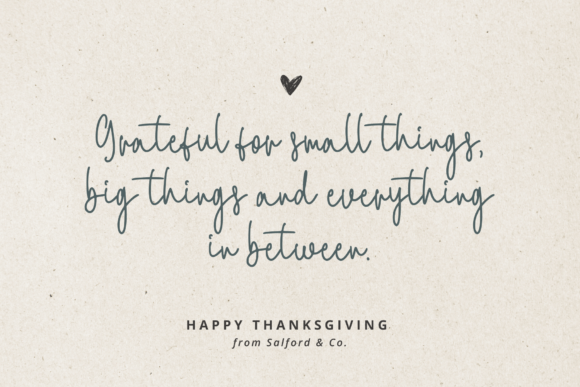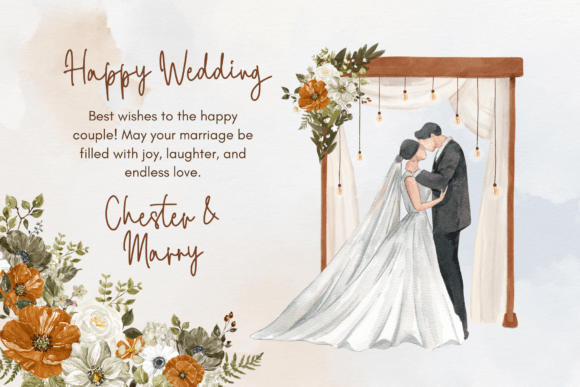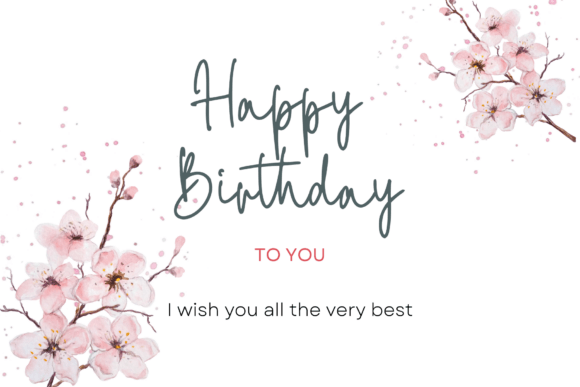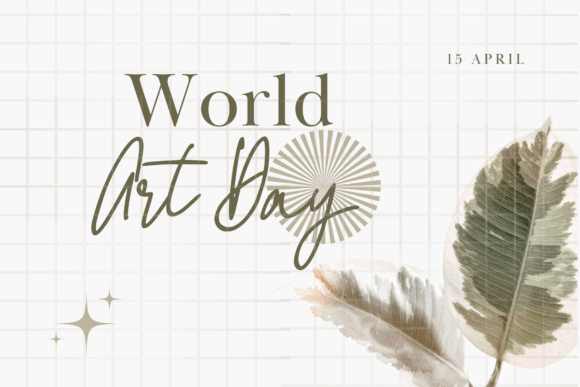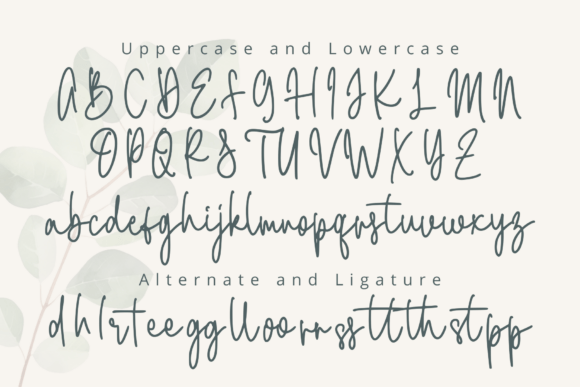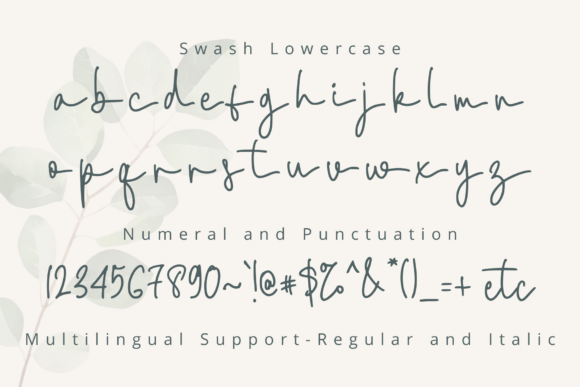
Unveiling the Best Valentines Font: Elevate Your Designs with a Touch of Elegance
As a designer or crafter, you’re constantly on the lookout for the perfect font to bring your creative vision to life. When it comes to Valentine’s Day designs, you want a font that’s not only romantic but also unique and eye-catching. Look no further than the Best Valentines font, an exceptionally crafted signature font that embodies the essence of a handwritten script.
The Charm of Best Valentines Font
Best Valentines font boasts an organic linearity that masterfully emulates the natural rhythm and sophistication of a human hand. This distinctive feature sets it apart from other fonts, giving your designs an authentic and individualistic flair. With Best Valentines, you can infuse your creations with a certain intimacy and raw creativity that will leave a lasting impression on your audience.
What Makes Best Valentines Font Stand Out?
- Unique Signature Style: Best Valentines font features a one-of-a-kind signature style that’s perfect for creating romantic and memorable designs.
- Handwritten Flair: The font’s organic linearity gives it a natural, handwritten feel that’s sure to captivate your audience.
- Elegant and Sophisticated: Best Valentines font exudes elegance and sophistication, making it ideal for a wide range of design applications.
- Versatile: Whether you’re designing Valentine’s Day cards, wedding invitations, or romantic posters, Best Valentines font is the perfect choice.
How to Use Best Valentines Font in Your Designs
Best Valentines font is incredibly versatile and can be used in a variety of design applications. Here are a few ideas to get you started:
- Valentine’s Day Cards: Create romantic and personalized Valentine’s Day cards with Best Valentines font.
- Wedding Invitations: Add a touch of elegance to your wedding invitations with this beautiful font.
- Romantic Posters: Design eye-catching posters that celebrate love and romance with Best Valentines font.
- Social Media Graphics: Use Best Valentines font to create engaging social media graphics that will capture your audience’s attention.
Tips for Getting the Most Out of Best Valentines Font
To make the most of Best Valentines font, here are a few tips to keep in mind:
- Experiment with Colors: Try pairing Best Valentines font with different colors to create unique and eye-catching designs.
- Play with Typography: Experiment with different typography styles to add depth and interest to your designs.
- Keep it Simple: Don’t be afraid to keep your designs simple and elegant – sometimes less is more.
Best Valentines font is an exceptional signature font that’s perfect for designers and crafters looking to create romantic and memorable designs. With its unique style, elegant sophistication, and versatility, it’s the perfect choice for a wide range of design applications. So why wait? Immerse your audience in the charismatic presence of Best Valentines font and elevate your designs to new heights.
Get Ready to Fall in Love with Best Valentines Font